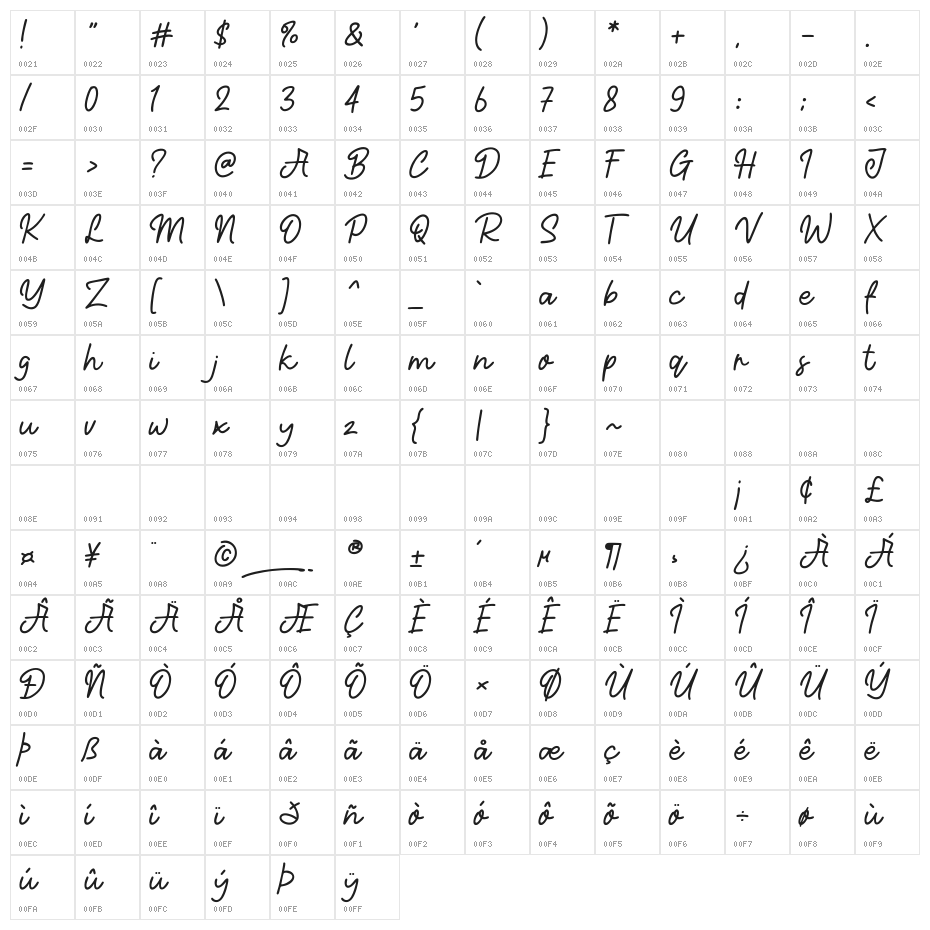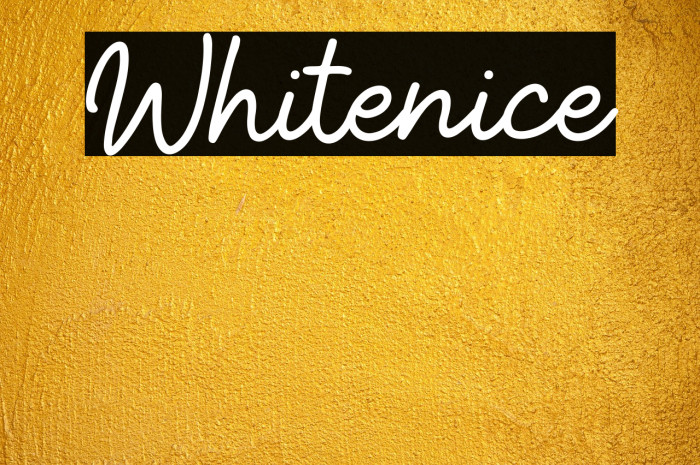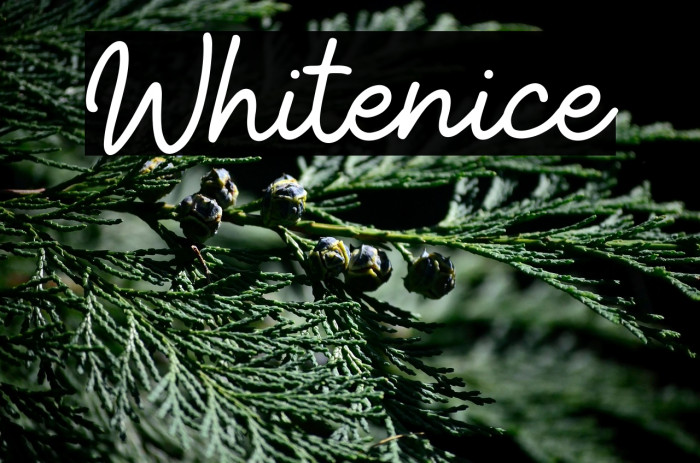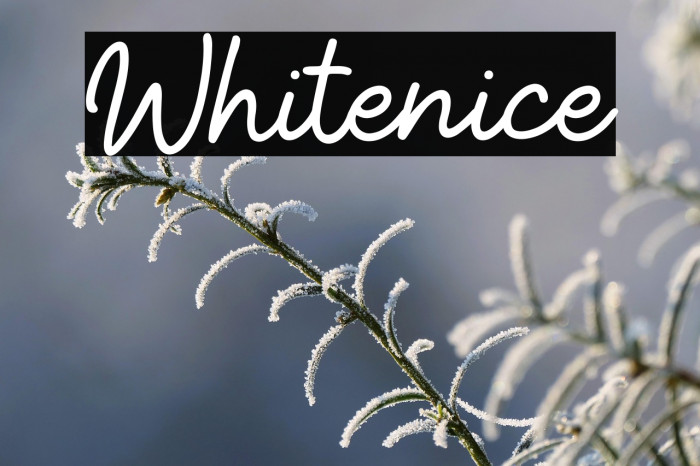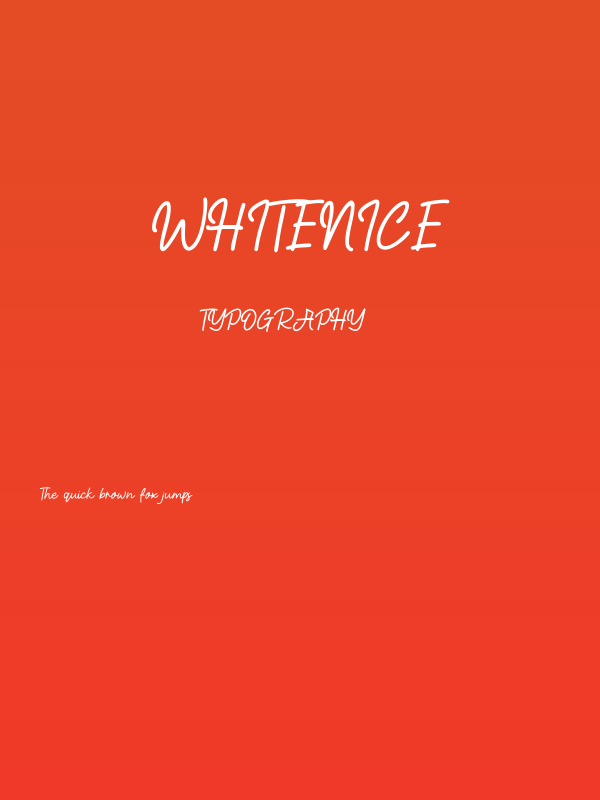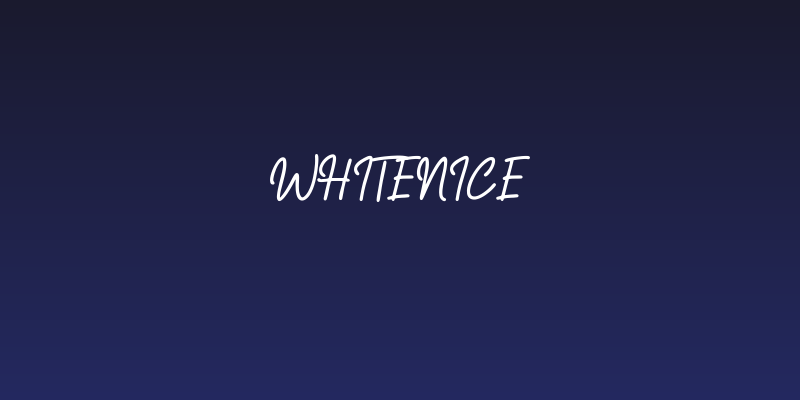
Whitenice Font
Whitenice Description
This font features a flowing, cursive style that mimics natural handwriting. The characters are connected, creating a smooth and elegant appearance. The uppercase letters are slightly more embellished, while the lowercase letters maintain a consistent, rounded form. The numerals and special characters are designed to complement the overall script style, ensuring a cohesive look. This font is ideal for projects that require a personal touch, such as invitations, greeting cards, and branding materials.
| Overall Style | Elegant, Handwritten |
| Use Case | Logos, Invitations, Personal Branding |
| Proposed Projects | Ideal for wedding invitations, personal branding, greeting cards, and elegant stationery. |